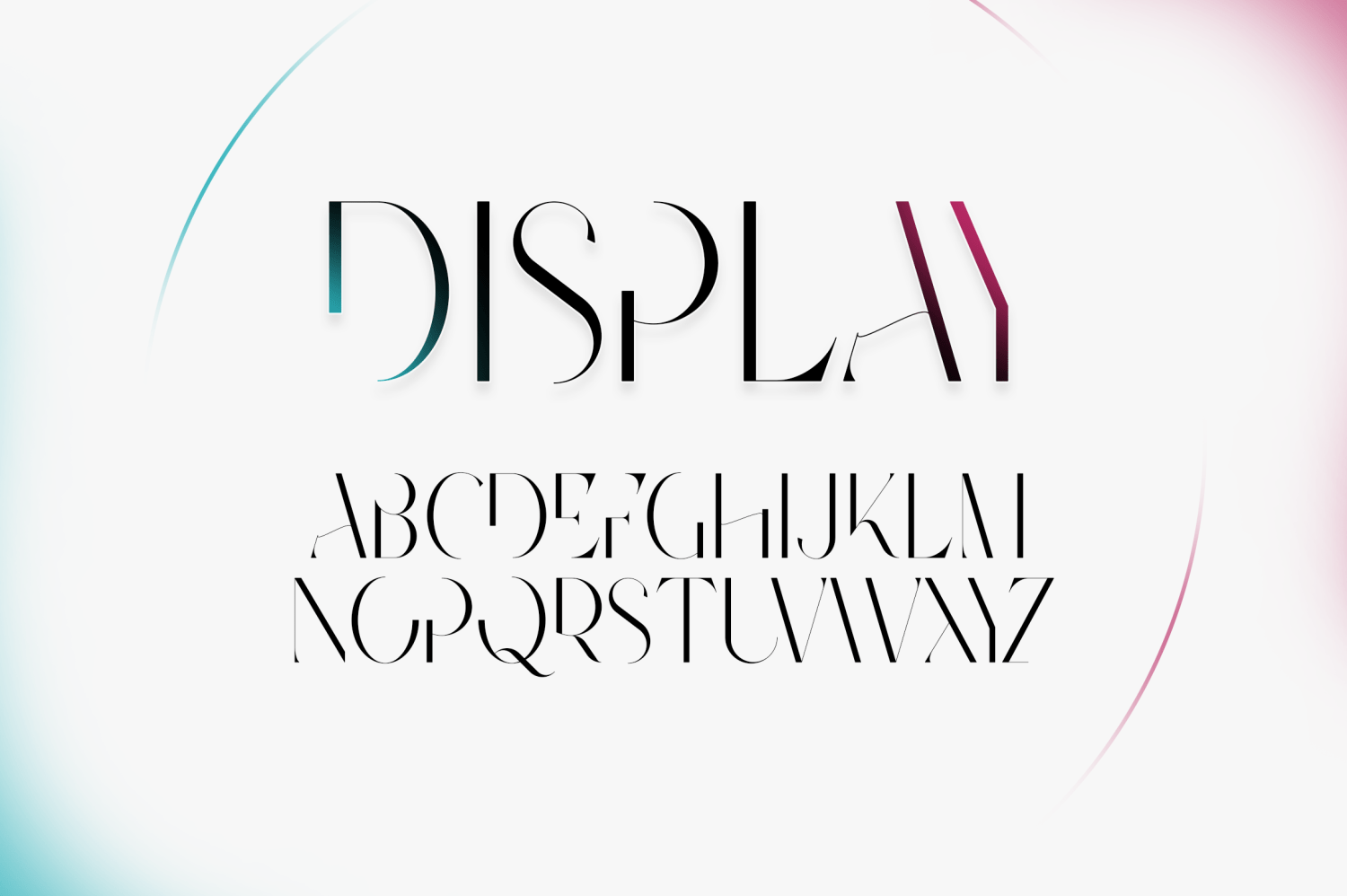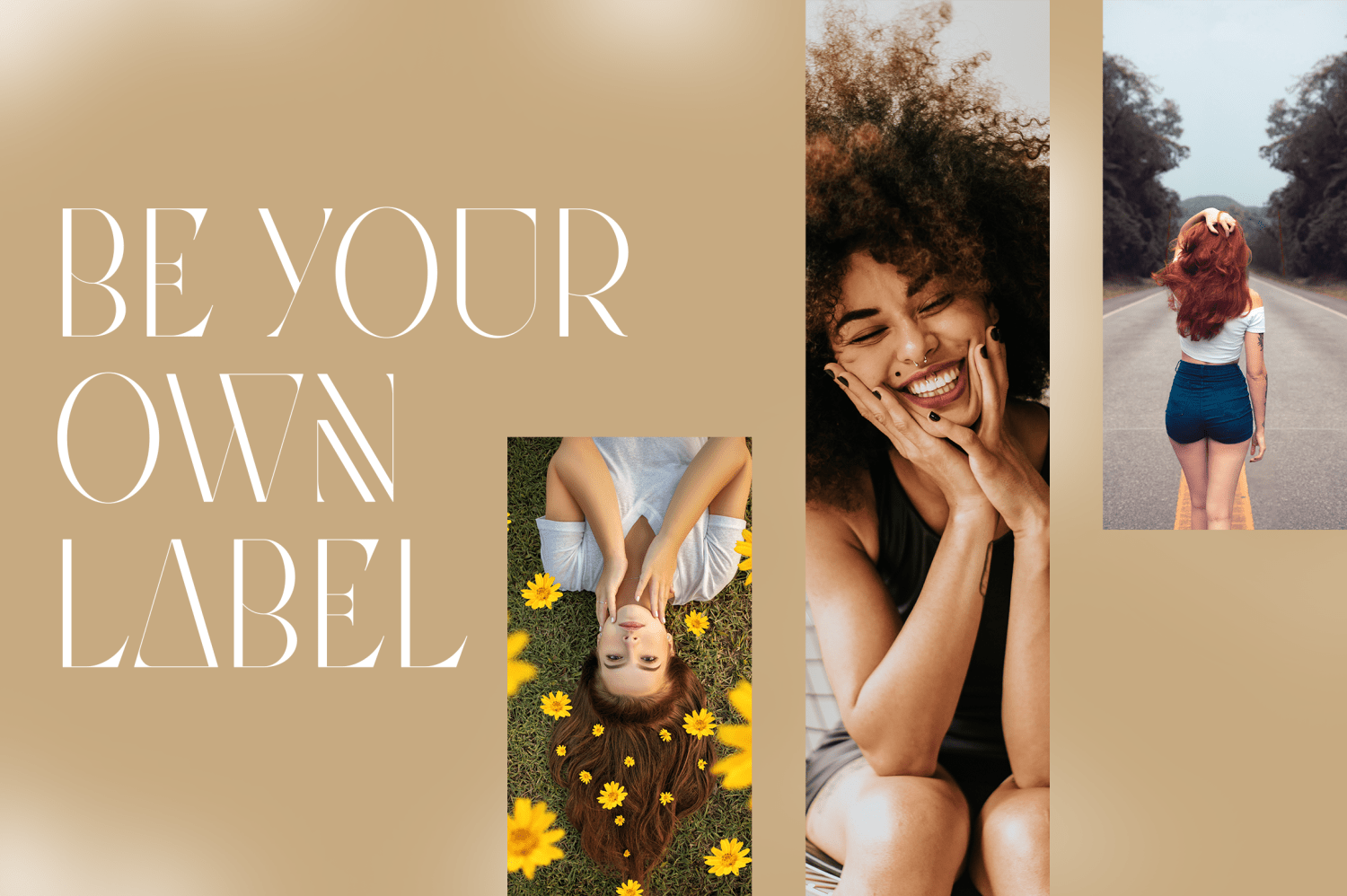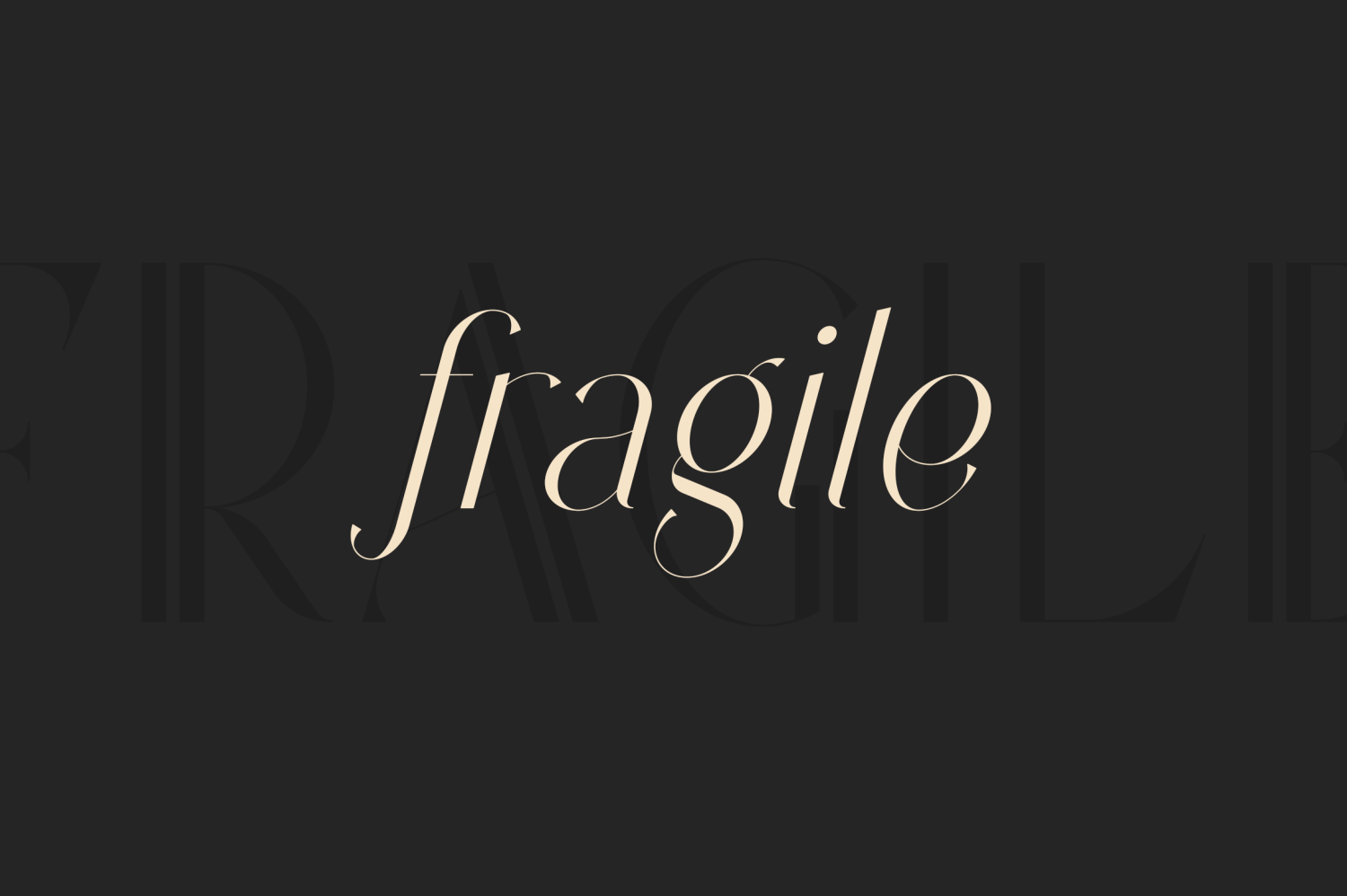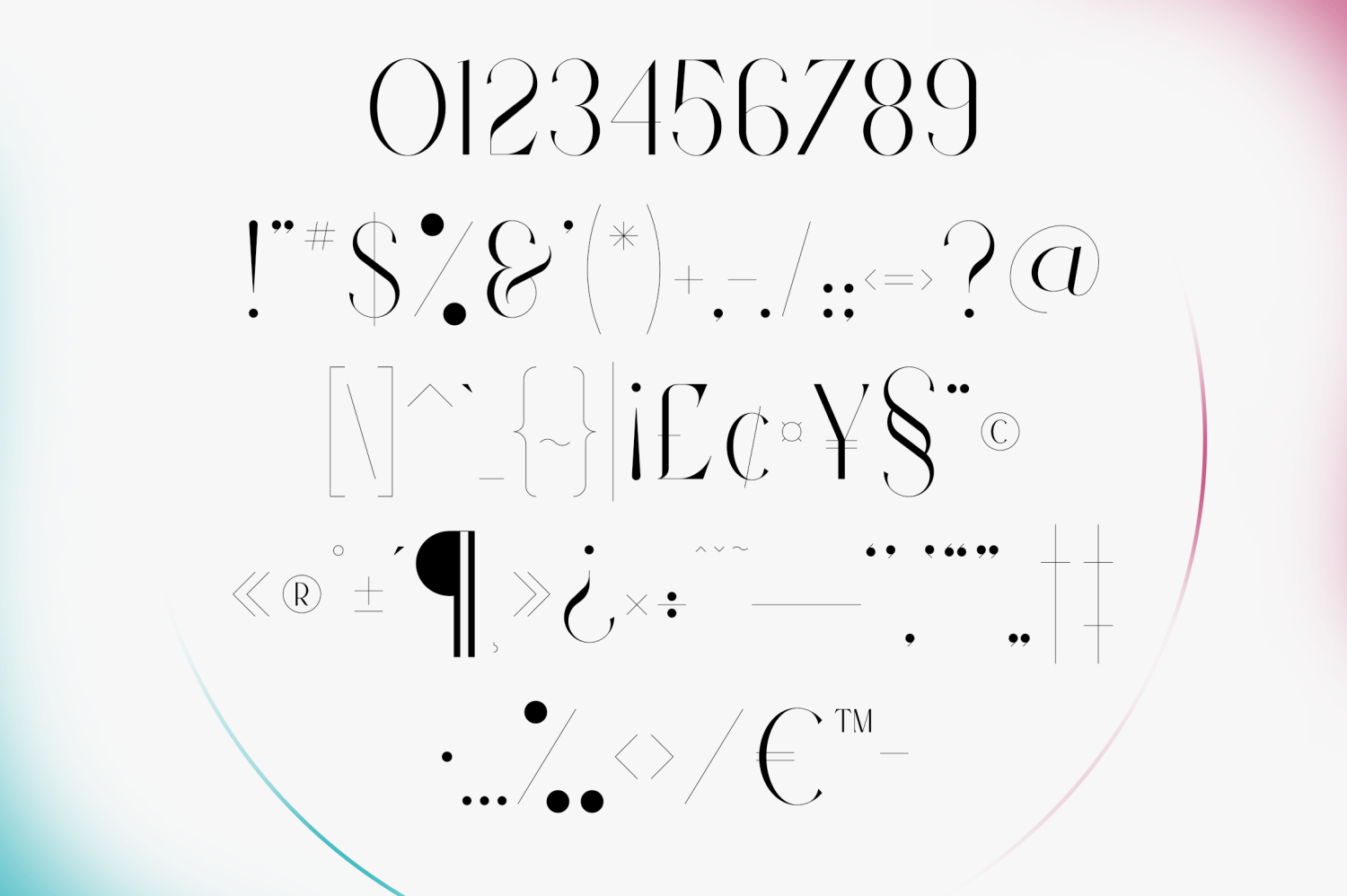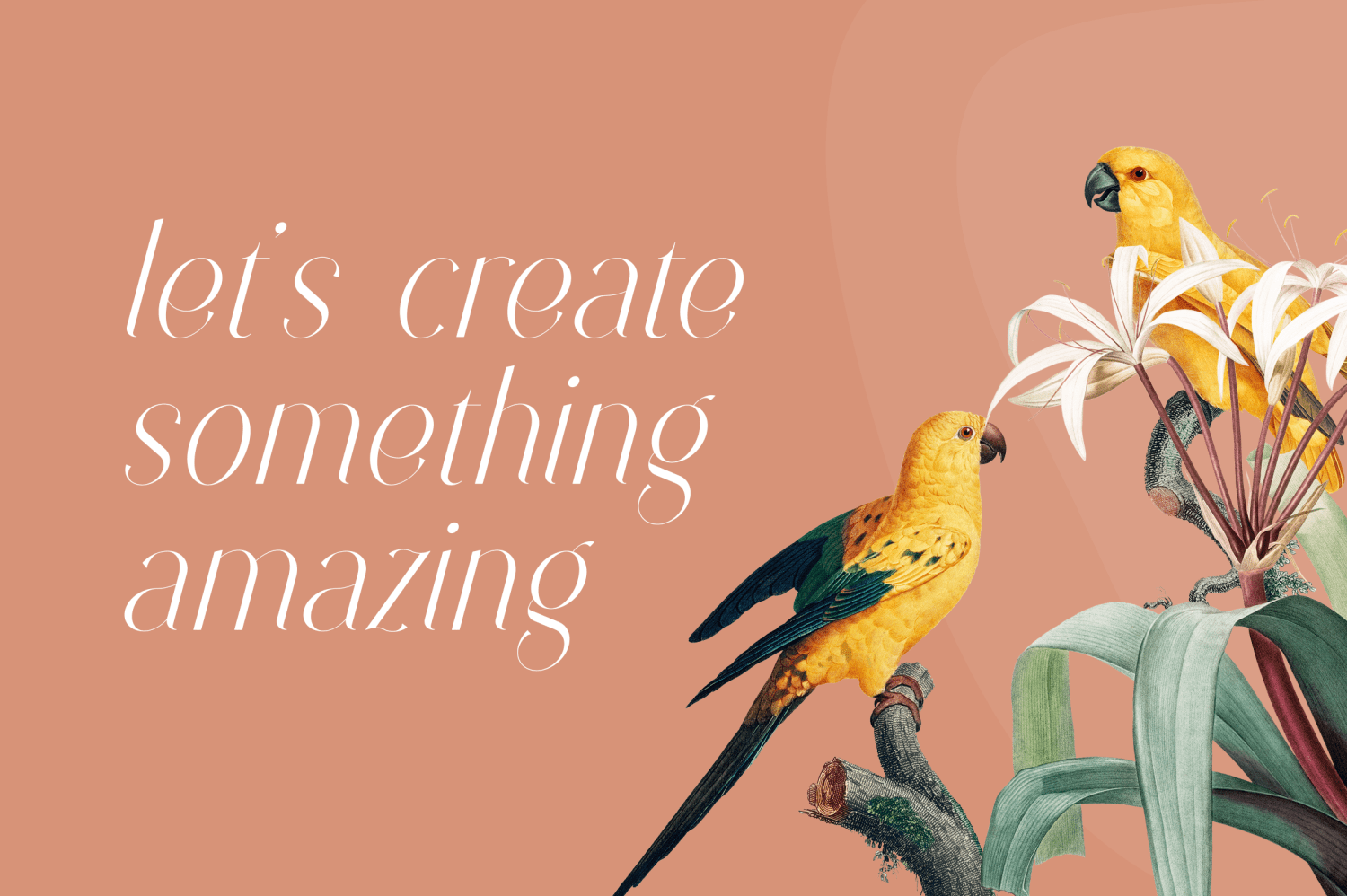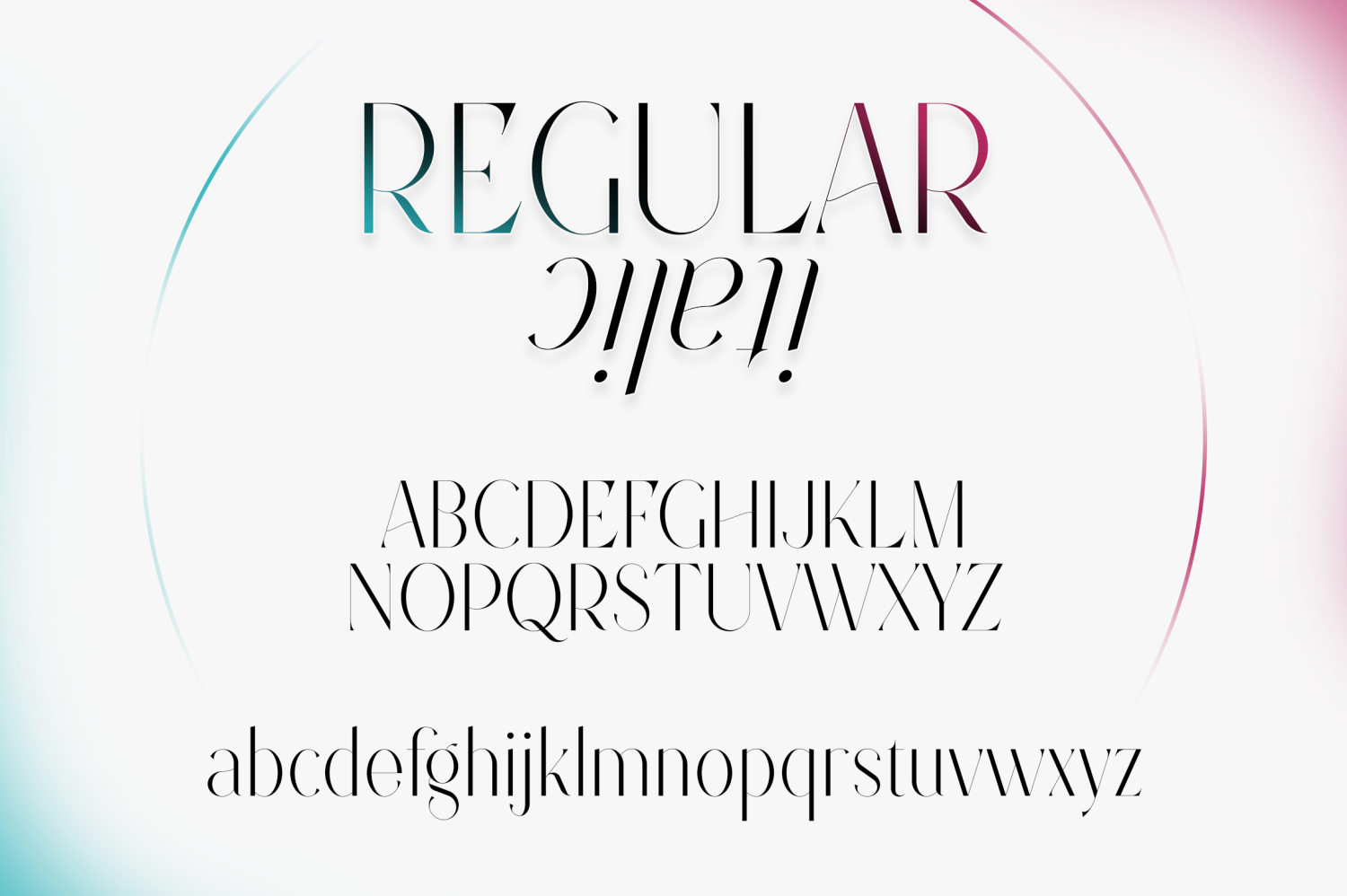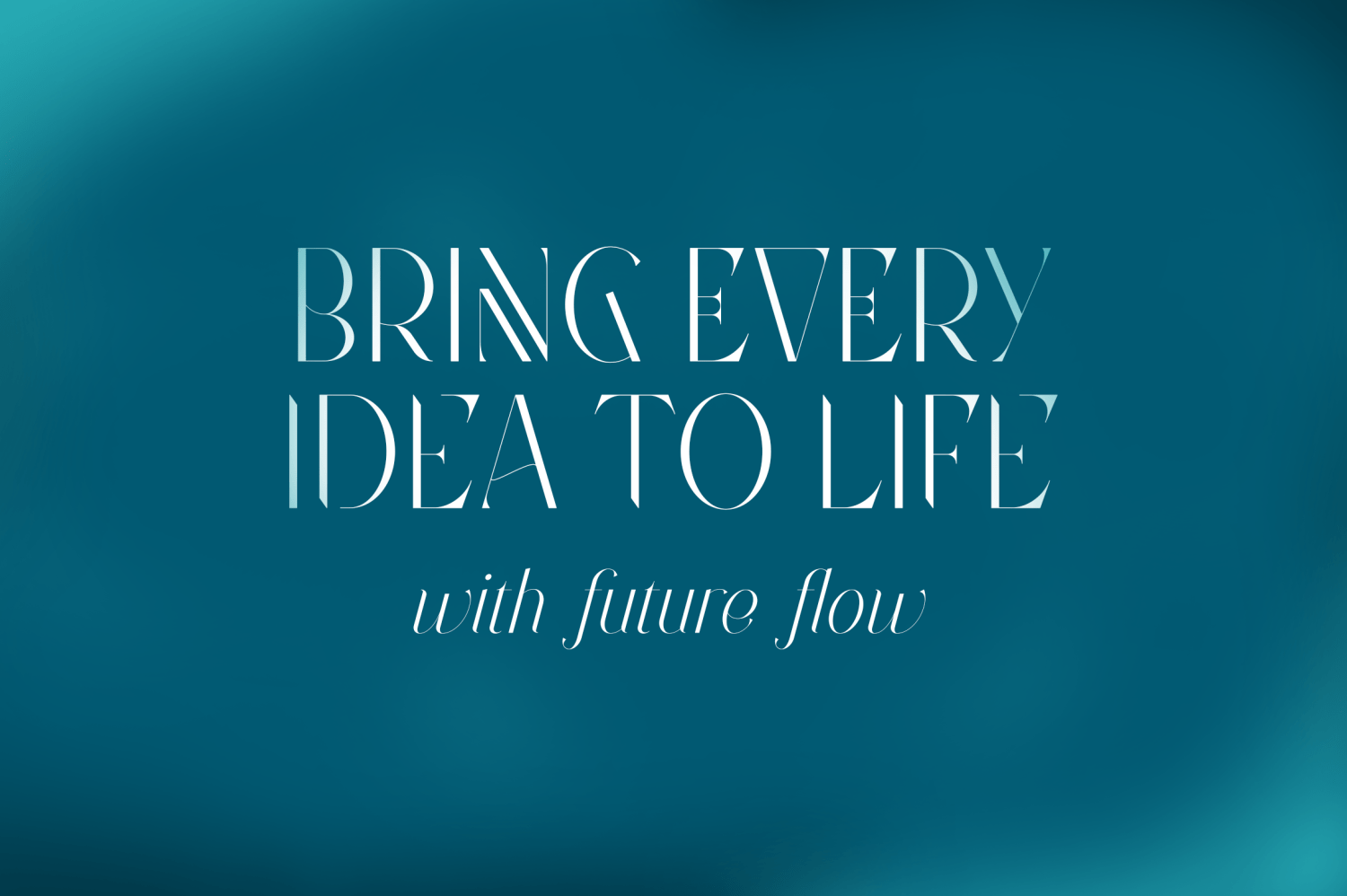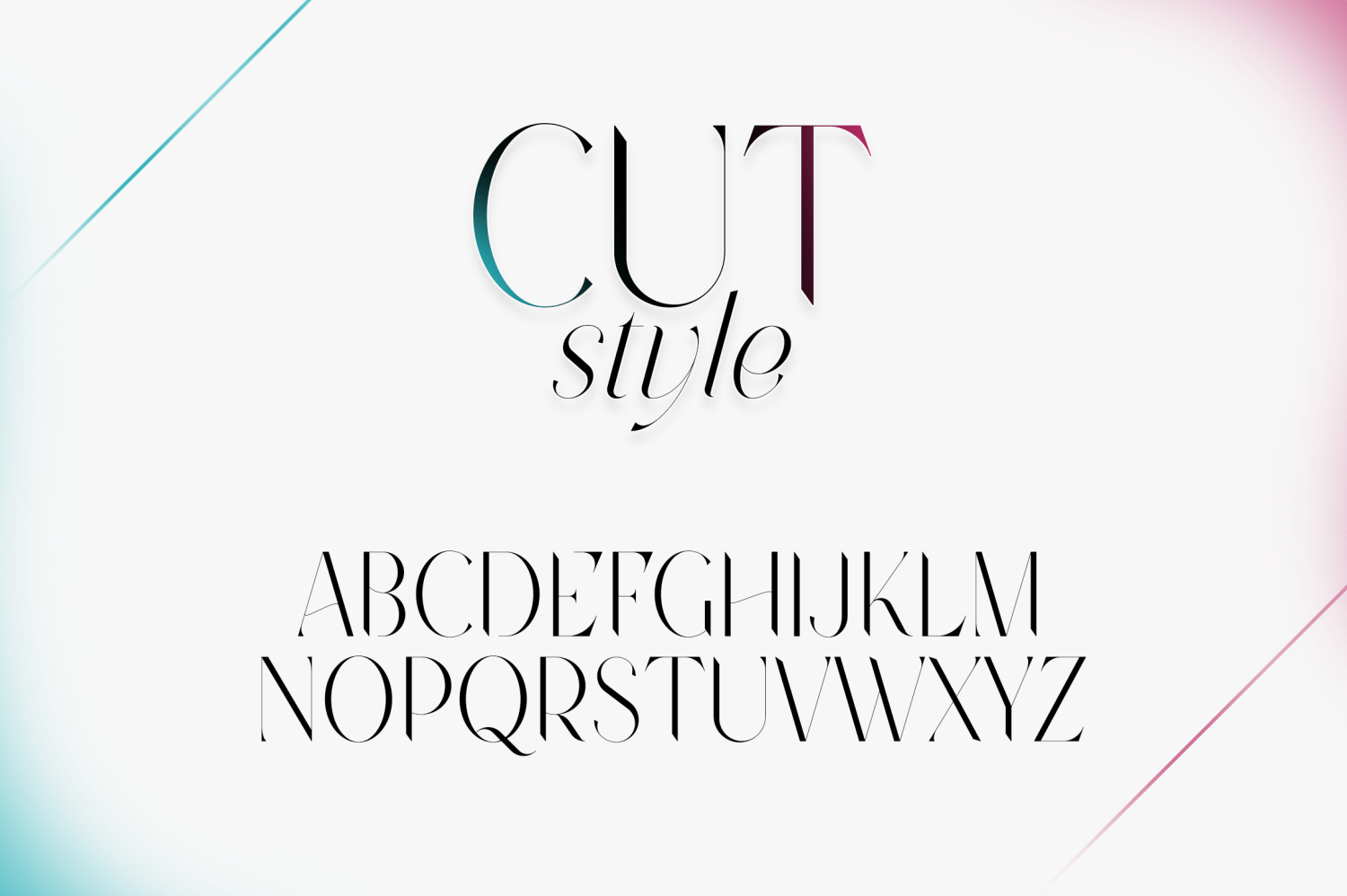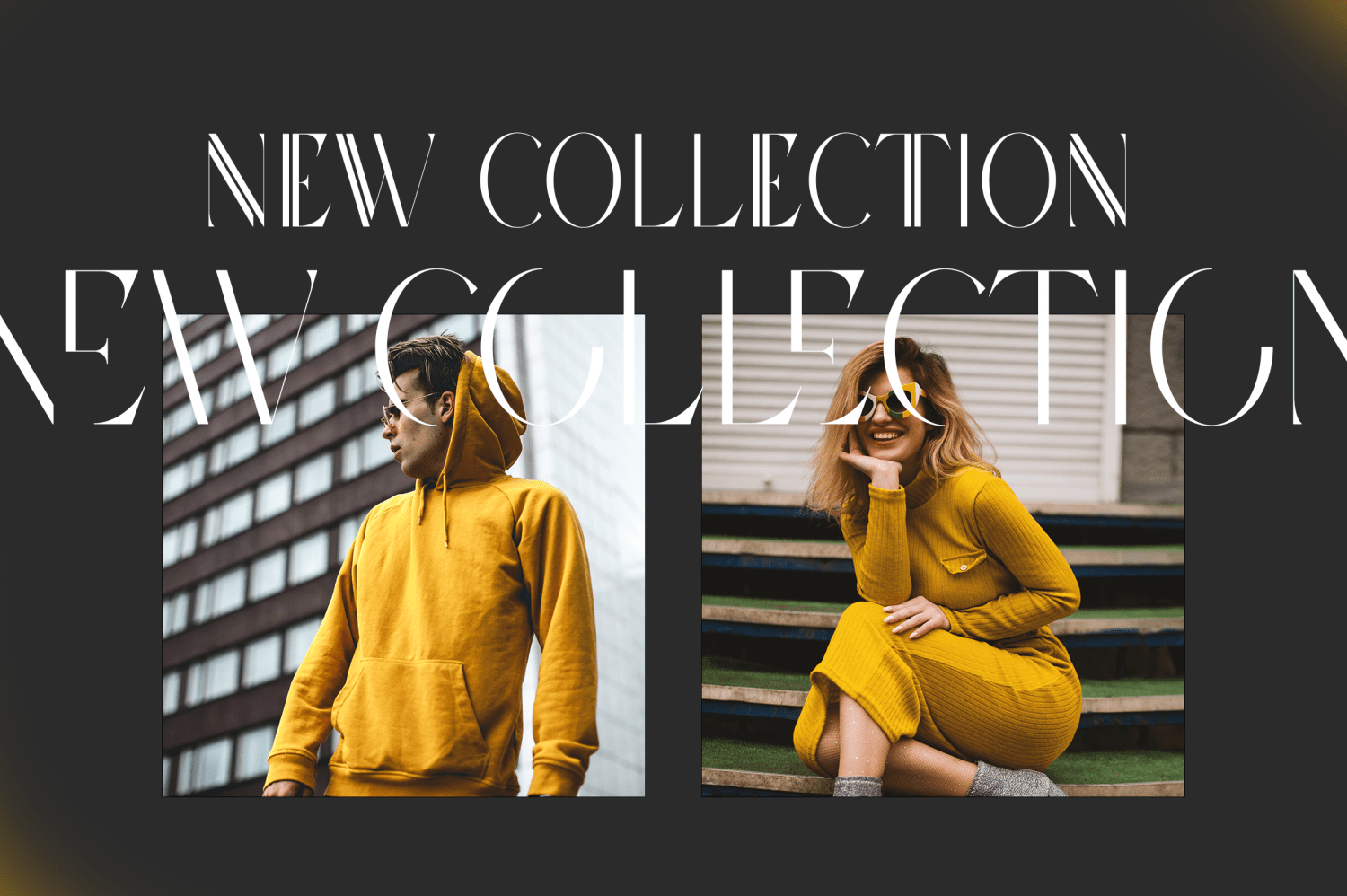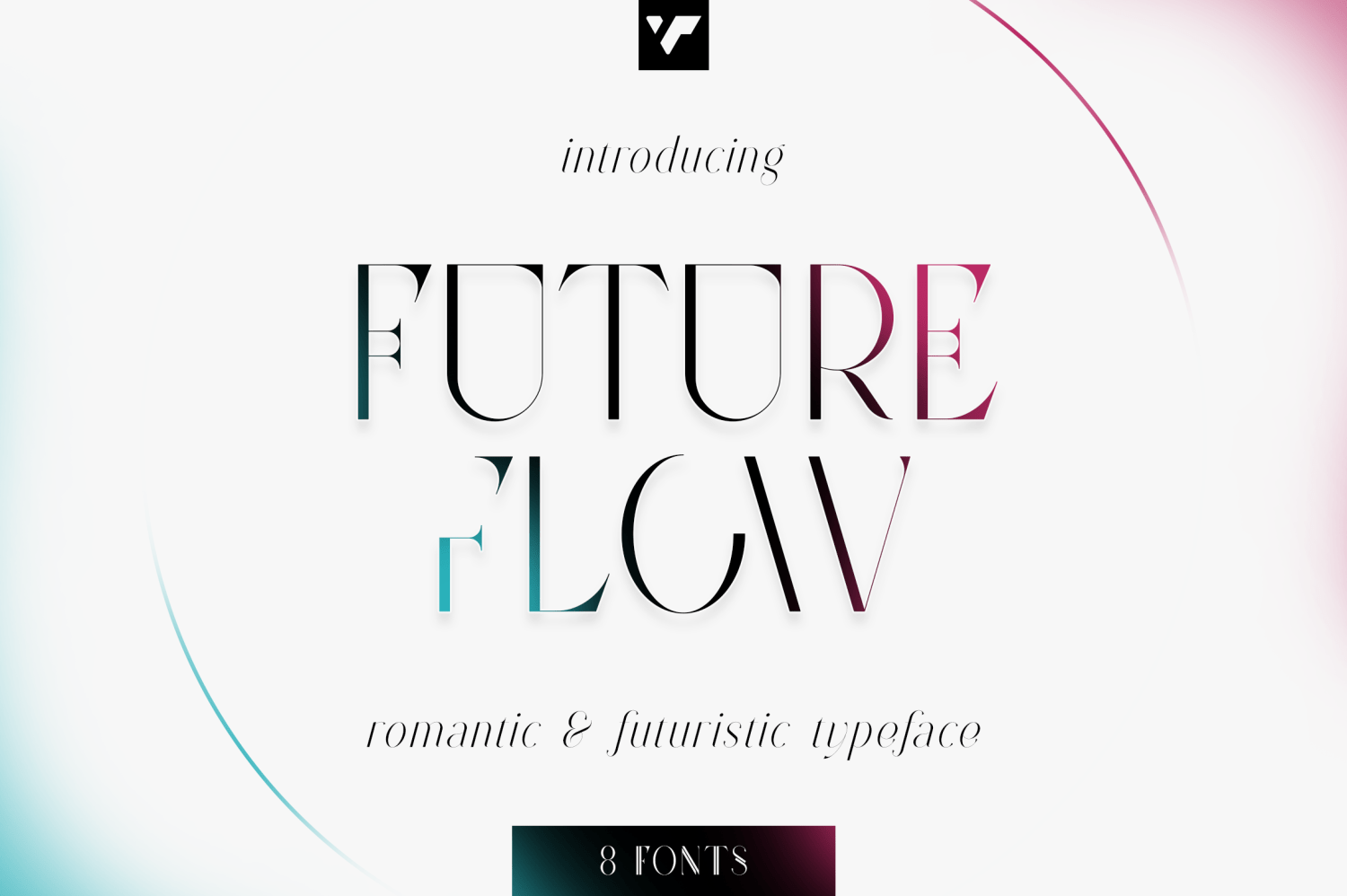
Future Flow
Introducing Future Flow typeface – 8 fonts Looking for a font that combines classic elegance, romance, and a futuristic vibe? Look no further than Future Flow! This unique typeface offers eight distinct font styles, each with its own personality…